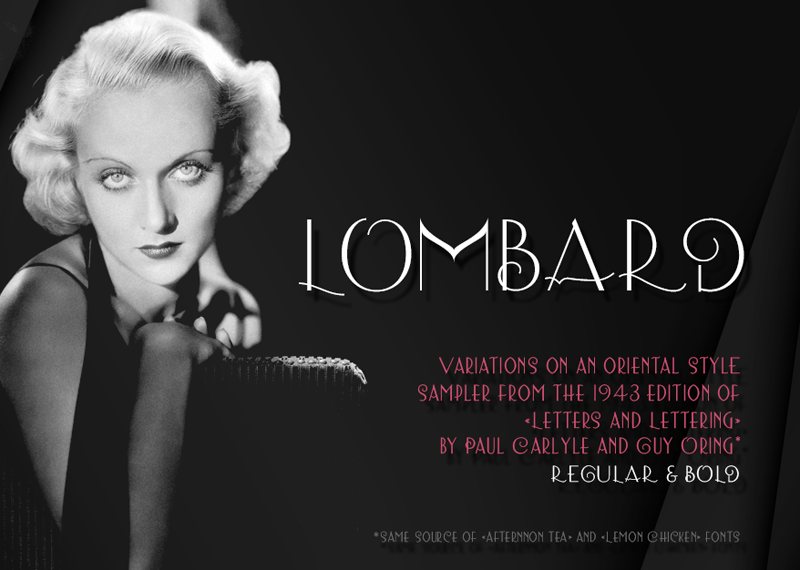
Lombard Typeface
This typeface was traced from an unnamed «orient» alphabet from the 1943 edition of «New Letters and Lettering» by Paul Carlyle and Guy Oring